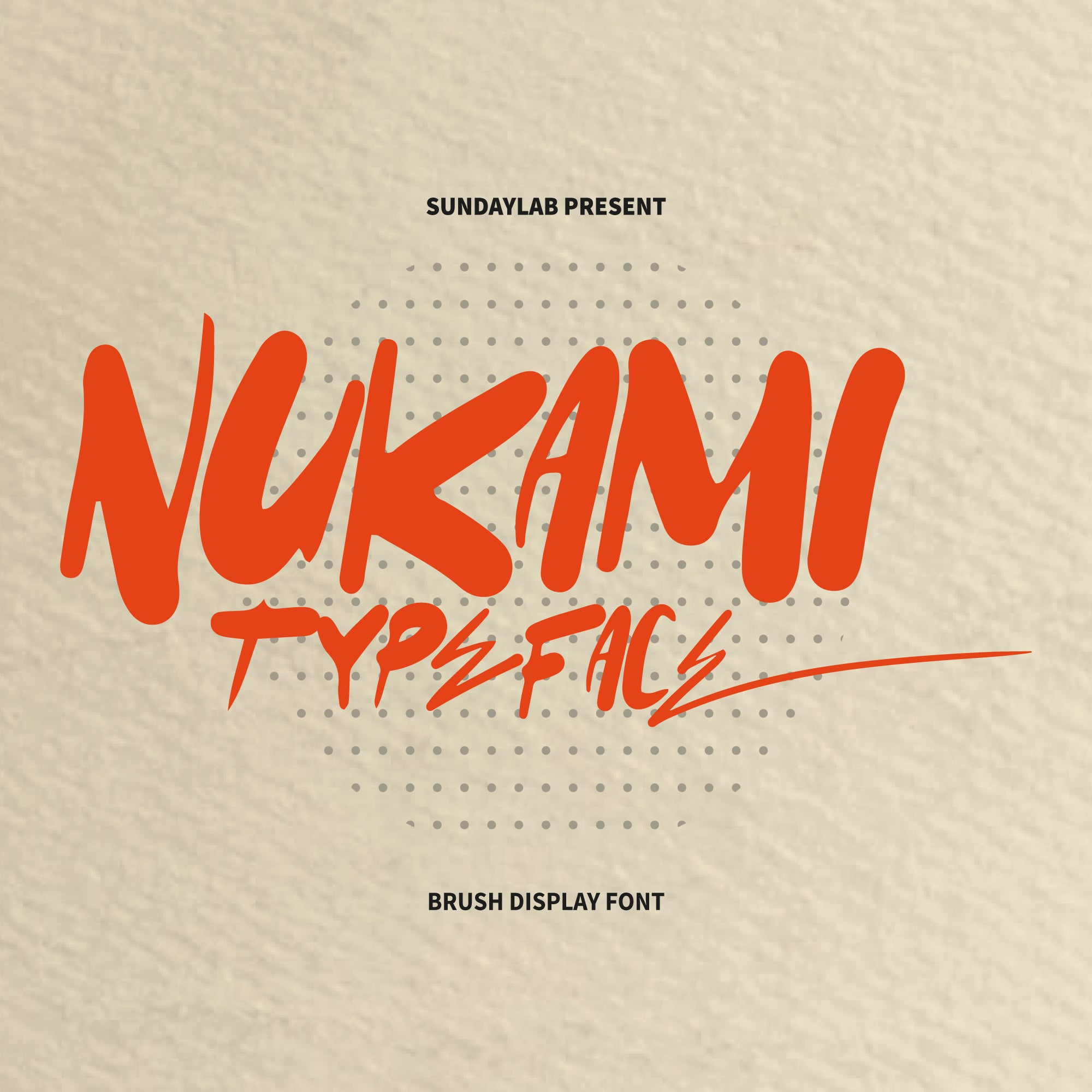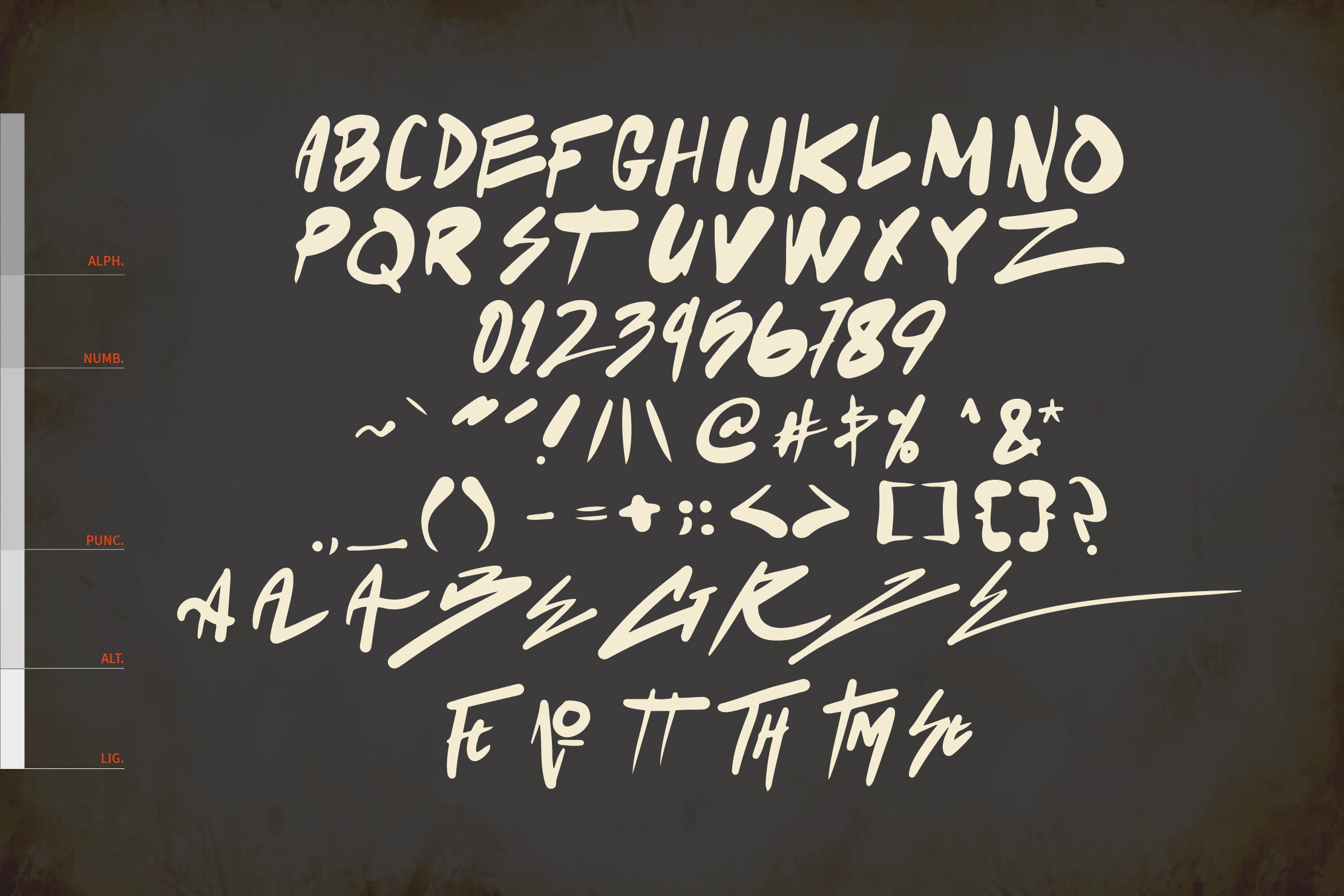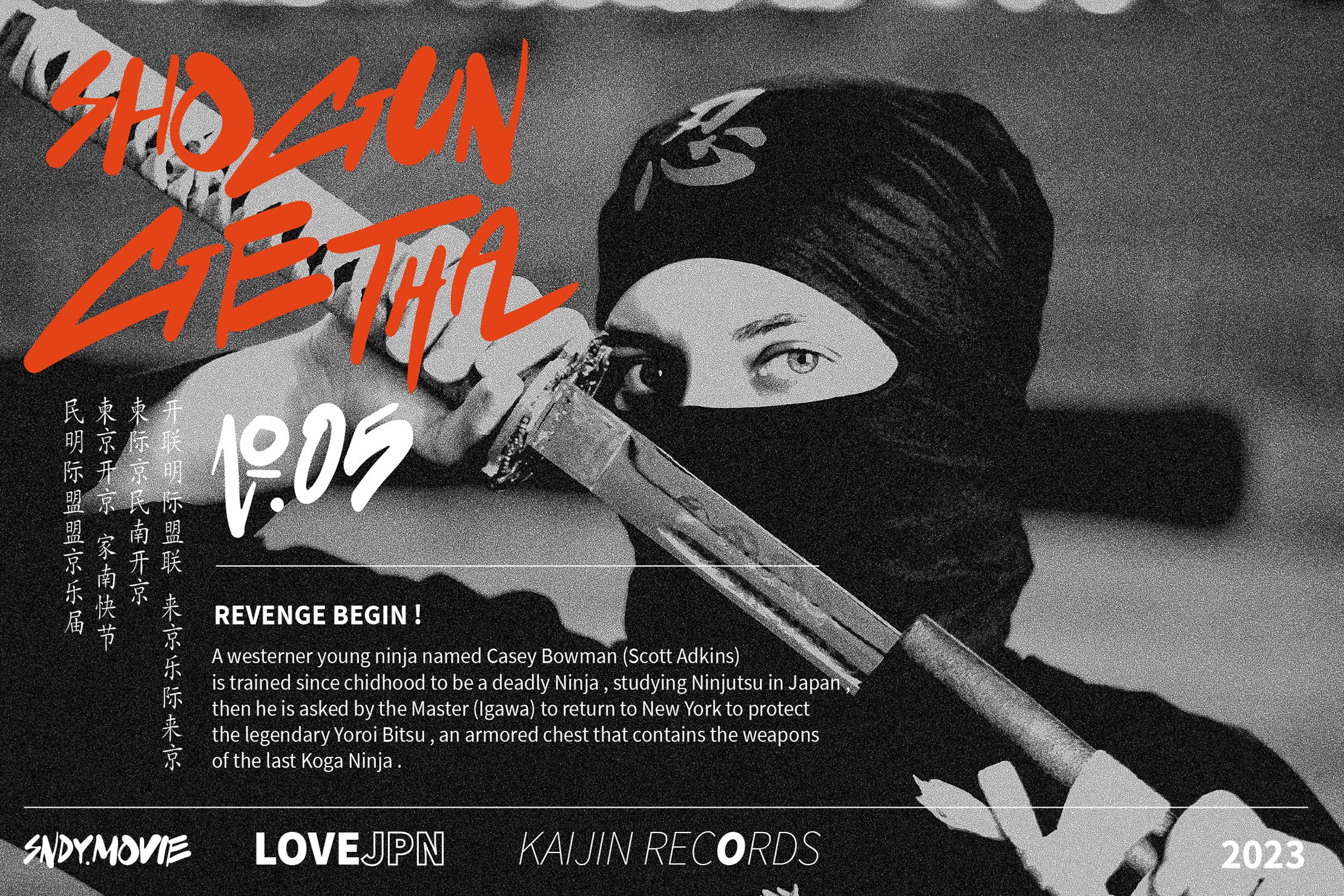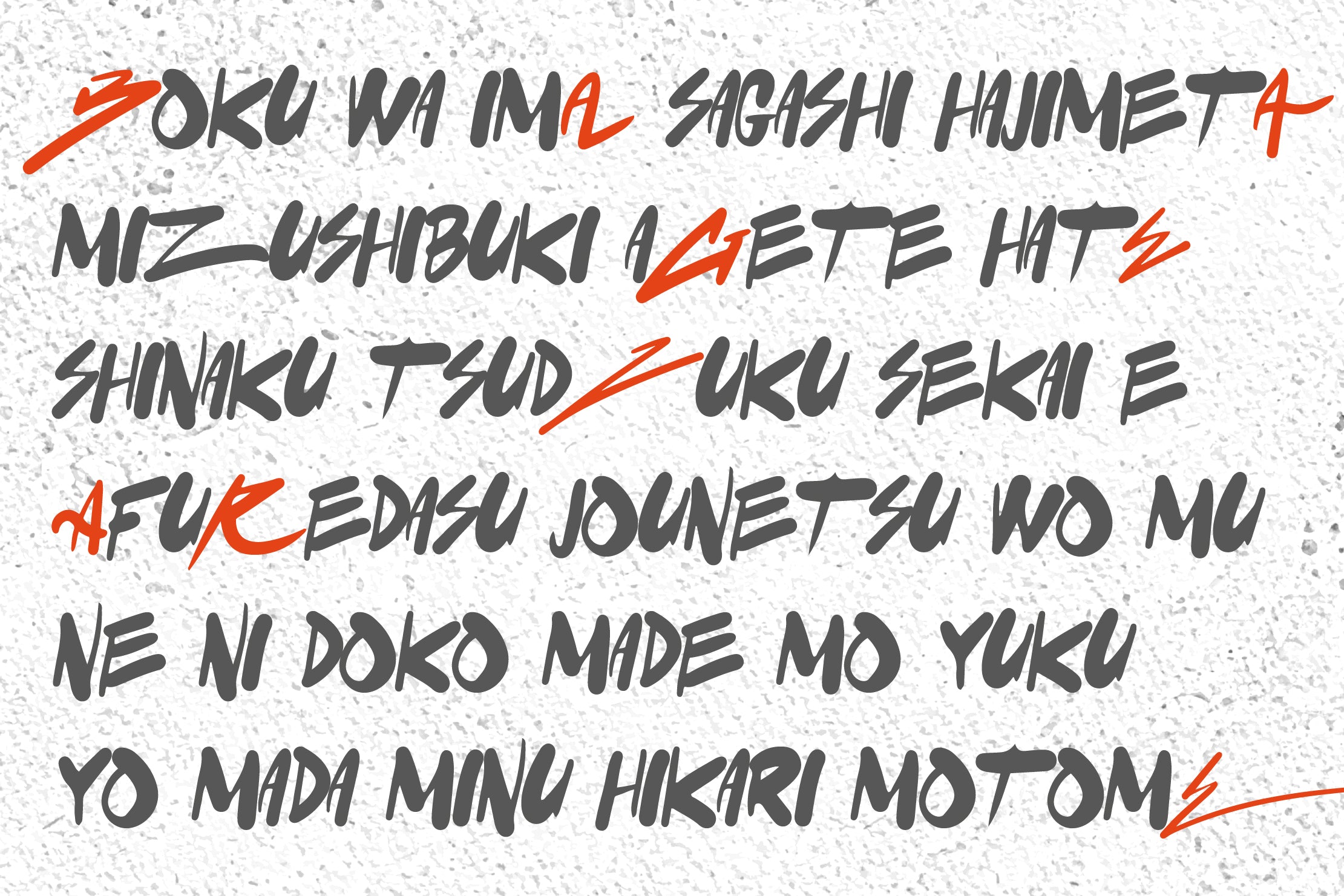
Nukami Display Typeface
Nukami Typeface is a bold and expressive brush display font inspired by the raw energy of hand-painted lettering, street culture, and contemporary Japanese-inspired aesthetics. Featuring dynamic strokes, irregular letterforms, sharp brush endings, and an authentic handmade character, Nukami brings a spontaneous and rebellious personality to every design.
Designed to feel natural rather than perfectly constructed, the typeface retains the imperfections and movement of real brush lettering. Its energetic forms create a strong sense of motion, making it especially effective for designs that need a bold, artistic, and unconventional visual statement.
Nukami works beautifully for posters, apparel graphics, streetwear branding, album covers, movie titles, event posters, logos, packaging, social media artwork, and editorial designs. Its expressive appearance can instantly add an urban and handcrafted feel to both modern and vintage-inspired compositions.
The typeface also includes alternative characters and ligatures, allowing you to create more organic and varied lettering combinations. Mix and match the alternate glyphs to achieve a more authentic hand-lettered appearance and make your typography feel less repetitive.
Whether you're designing a Japanese-inspired poster, streetwear collection, music artwork, creative campaign, tattoo-inspired graphic, or bold brand identity, Nukami Typeface is built to make your typography stand out.
Nukami Typeface is made for designers looking for typography that feels raw, energetic, artistic, rebellious, handmade, and full of movement.
Nukami Display Typeface is a brush-style font featuring irregular letterforms, sharp brush endings, and hand-painted texture, including alternate characters and ligatures. It is provided in .otf and .ttf formats with a Read Me file.